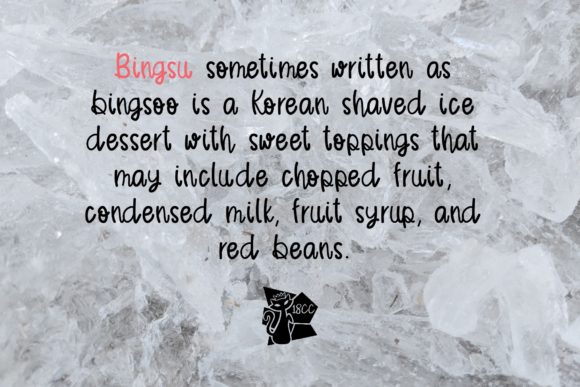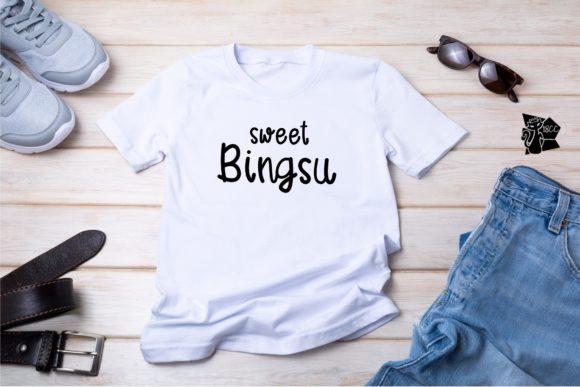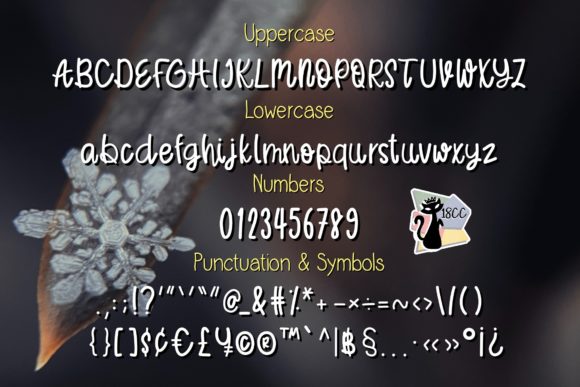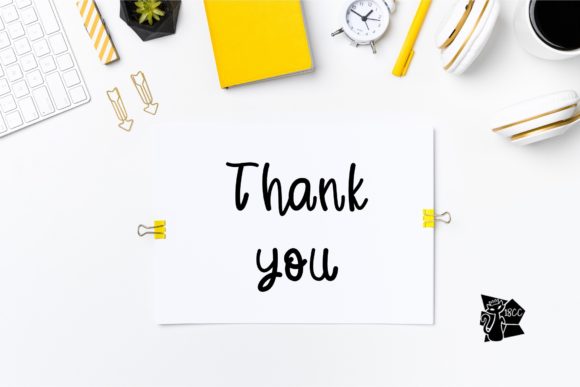
Bingsu Font: The Perfect Casual and Simple Handwritten Font for Designers and Crafters
Are you a designer or crafter looking for a font that is both clean and cute? Look no further than Bingsu Font! This casual and simple handwritten font is perfect for a variety of projects, from logos and branding to social media and DIY crafts. In this article, we’ll take a closer look at the Bingsu Font and explore its many uses and benefits.
What is Bingsu Font?
Bingsu Font is a type of handwritten font that is characterized by its clean and simple design. It is a casual font that is perfect for creating a friendly and approachable feel in your designs. The font is made up of smooth, flowing lines that give it a soft and rounded appearance. This makes it ideal for use in a variety of projects, from logos and branding to social media graphics and DIY crafts.
Key Features of Bingsu Font
So, what makes Bingsu Font so special? Here are some of its key features:
- Clean and Simple Design: Bingsu Font has a clean and simple design that makes it easy to read and use in a variety of projects.
- Cute and Friendly Feel: The font has a cute and friendly feel that makes it perfect for creating a approachable and inviting atmosphere in your designs.
- Handwritten Style: Bingsu Font is a handwritten font that gives it a personal and unique touch.
- Versatile: The font is versatile and can be used in a variety of projects, from logos and branding to social media graphics and DIY crafts.
Uses for Bingsu Font
So, what can you use Bingsu Font for? The possibilities are endless! Here are some ideas to get you started:
- Logos and Branding: Bingsu Font is perfect for creating logos and branding materials that are clean, simple, and friendly.
- Social Media Graphics: The font is ideal for creating social media graphics that are eye-catching and engaging.
- DIY Crafts: Bingsu Font is perfect for use in DIY crafts, such as scrapbooking, card making, and other paper crafts.
- Signs and Posters: The font can be used to create signs and posters that are clear and easy to read.
Benefits of Using Bingsu Font
So, why should you use Bingsu Font in your projects? Here are some benefits:
- Easy to Read: Bingsu Font is easy to read, even at small sizes.
- Versatile: The font can be used in a variety of projects and contexts.
- Unique and Personal: Bingsu Font has a unique and personal touch that sets it apart from other fonts.
- Clean and Simple: The font has a clean and simple design that makes it easy to use and versatile.
In conclusion, Bingsu Font is a casual and simple handwritten font that is perfect for designers and crafters. Its clean and cute design makes it ideal for use in a variety of projects, from logos and branding to social media graphics and DIY crafts. With its versatility, ease of use, and unique and personal touch, Bingsu Font is a great choice for anyone looking for a font that is both functional and stylish.